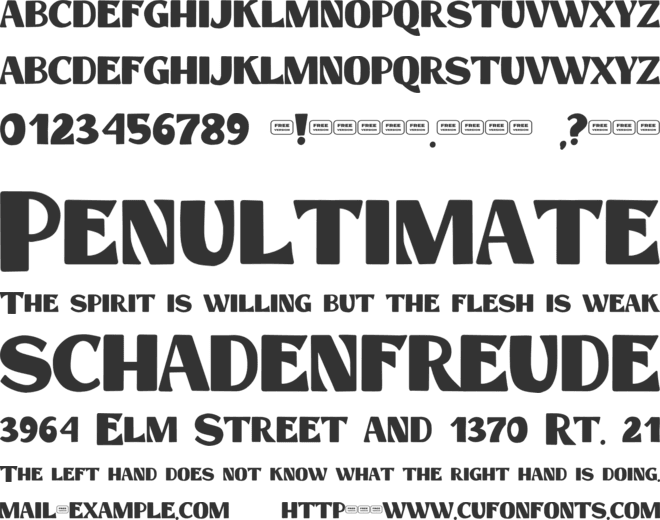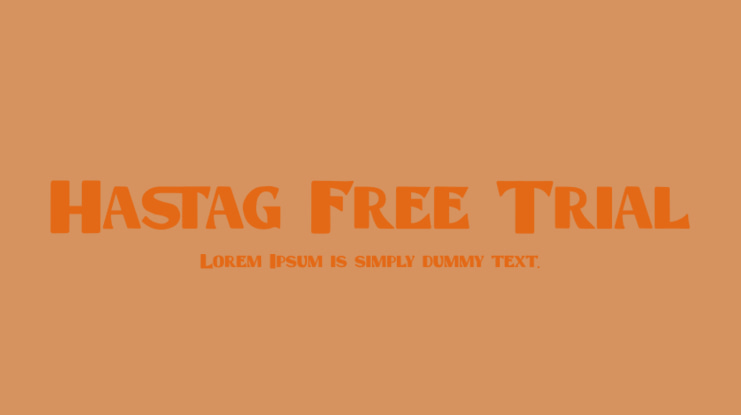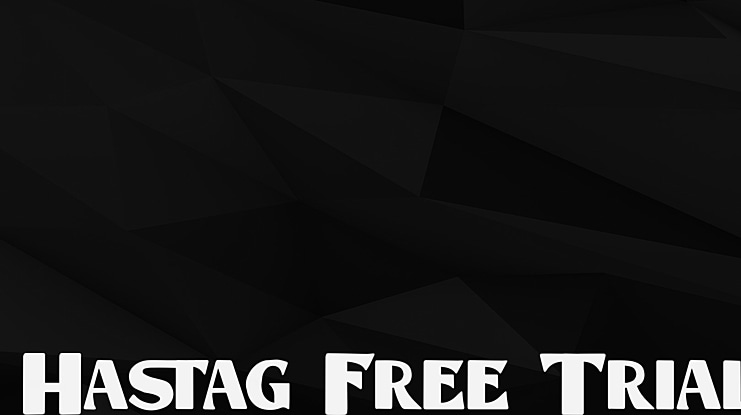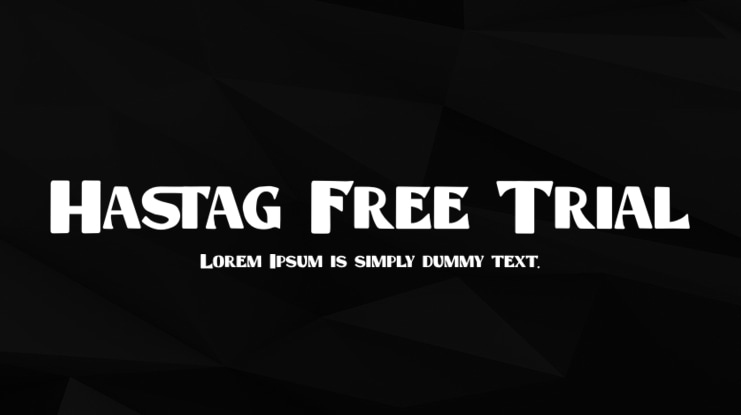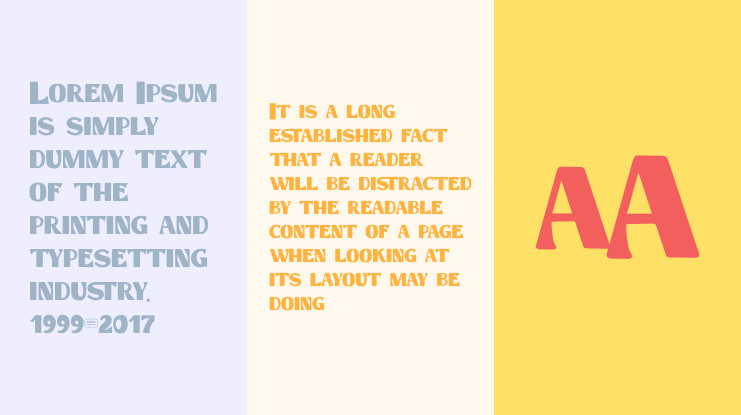
Hastag Free Trial Font
Hastag is a vintage display font that was made by hand and inspired by classic posters. Hastag comes with uppercase, small caps, numerals, symbols & punctuations, alternate, ligature and multilingual support.